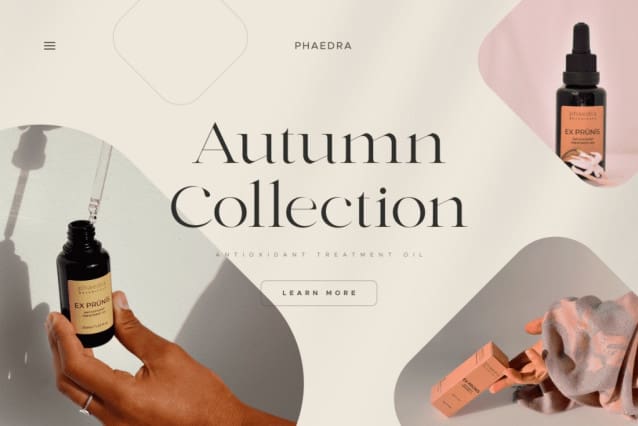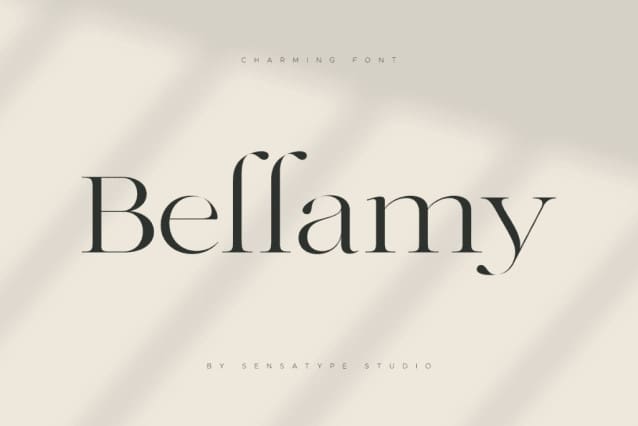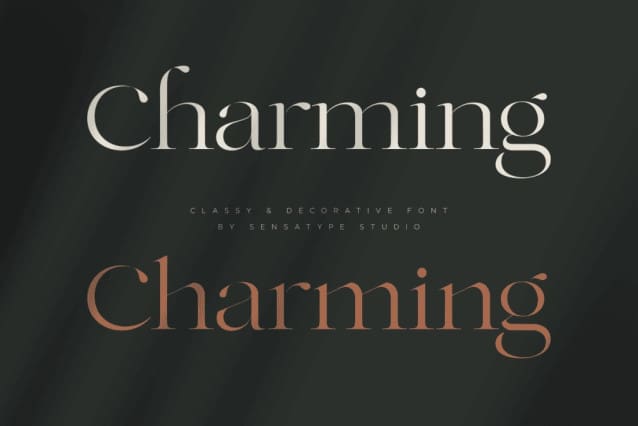
Charming Serif Font
Charming Serif Font is a Font Duo with Classy & Decorative Style with. It is perfect for branding, wedding invites and cards, and maybe for some project. This is perfect for BRANDING and LOGO DESIGN. You will get classy, elegant, and certainly unique logos with this font.